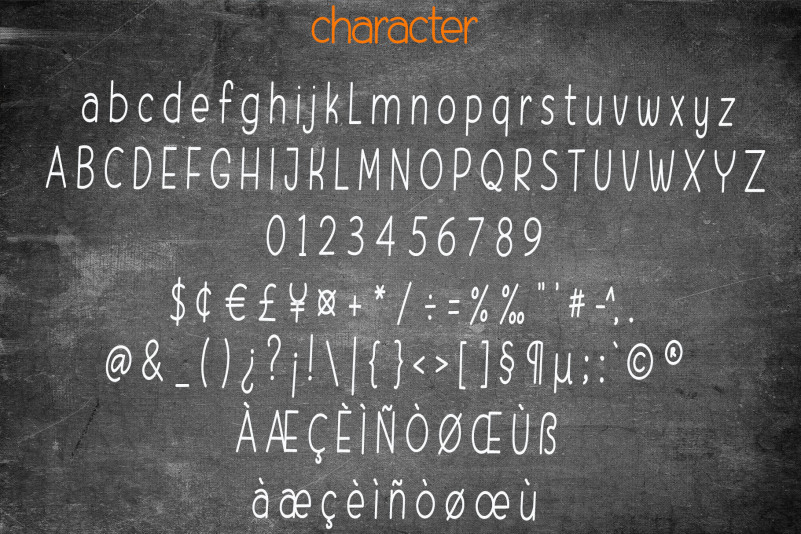
Farmhouse Font
Farmhouse Display Font
This is a sweet, thin and flexible handwritten font. It can easily be matched to an incredibly large set of projects, so add it to your creative ideas and notice how it makes them stand out!